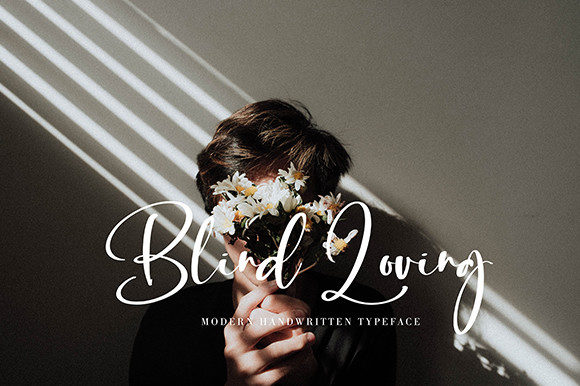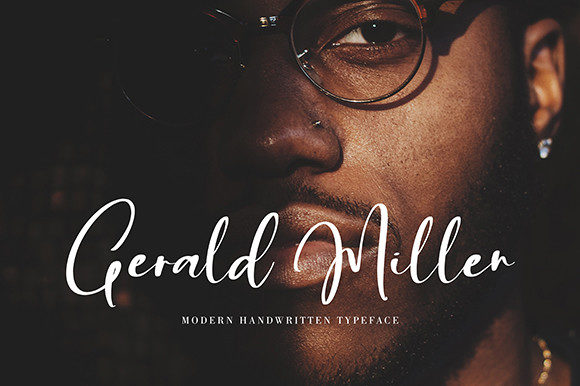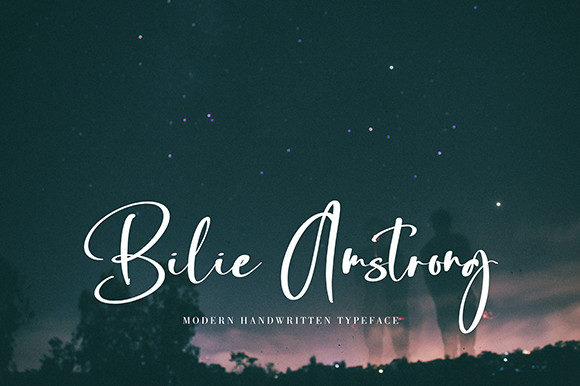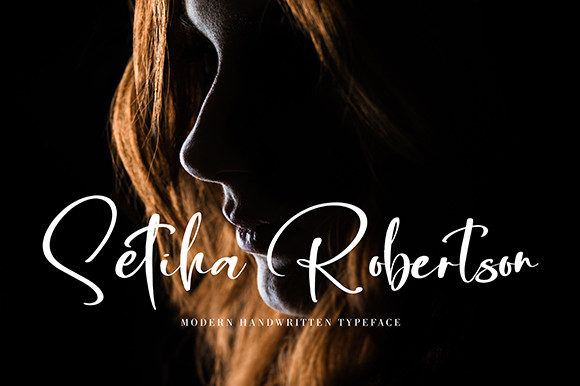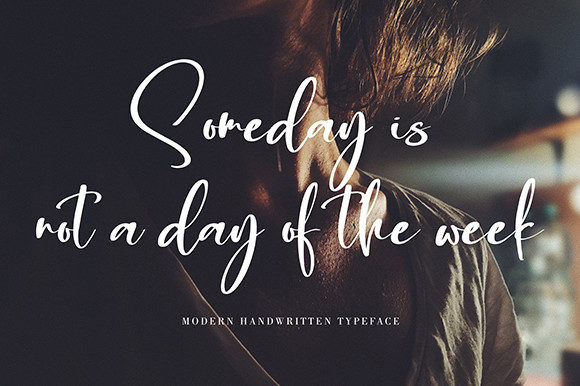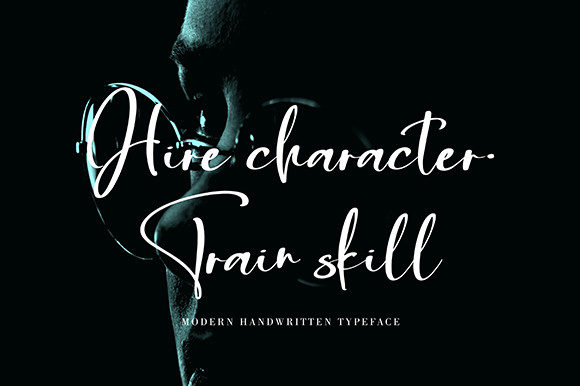
Introducing Begetto Elliot Font: Elevate Your Designs with Elegance
Are you on the hunt for a font that adds a touch of sophistication and elegance to your projects? Look no further than Begetto Elliot, a stunning handwritten font that is sure to capture your heart. With its flowing lines and timeless style, Begetto Elliot is the perfect choice for designers and crafters looking to create spectacular designs that stand out from the crowd.
The Beauty of Begetto Elliot
Begetto Elliot is a masterpiece of font design, boasting an elegant touch that is sure to elevate your designs to new heights. This beautiful handwritten font is characterized by its flowing lines, intricate details, and classic style, making it perfect for a wide range of projects, from wedding invitations and branding materials to social media graphics and more.
What Makes Begetto Elliot So Special?
So, what sets Begetto Elliot apart from other fonts on the market? Here are just a few of the key features that make this font truly special:
- Incredibly Distinct Style: Begetto Elliot has a unique and recognizable style that is sure to make your designs stand out from the crowd. Its elegant lines and classic details make it perfect for creating sophisticated and eye-catching designs.
- Timeless Appeal: Unlike trendy fonts that quickly go out of style, Begetto Elliot has a timeless quality that ensures it will remain relevant for years to come. Whether you’re creating designs for a client or working on a personal project, this font is sure to remain a stylish choice.
- Versatility: Begetto Elliot is a versatile font that can be used for a wide range of projects, from formal events and branding materials to social media graphics and more. Its elegant style makes it perfect for any design that requires a touch of sophistication.
How to Use Begetto Elliot in Your Designs
Using Begetto Elliot in your designs is easy! Here are a few tips to get you started:
- Pair it with Other Fonts: Begetto Elliot pairs perfectly with other fonts, making it easy to create stunning contrast and visual interest in your designs. Try pairing it with a clean sans-serif font for a modern look or a classic serif font for a more traditional feel.
- Use it for Headlines and Titles: Begetto Elliot is perfect for headlines and titles, where its elegant style can really shine. Use it to create eye-catching headings that draw the reader in and add a touch of sophistication to your designs.
- Experiment with Colors and Textures: Begetto Elliot looks stunning in a range of colors and textures, so don’t be afraid to experiment and find the perfect combination for your design. From classic black and white to bold brights and pastels, the possibilities are endless!
Why Designers and Crafters Love Begetto Elliot
Begetto Elliot has quickly become a favorite among designers and crafters, and it’s easy to see why. Here are just a few of the reasons why this font has captured the hearts of so many creatives:
- Elegant Style: Begetto Elliot’s elegant style makes it perfect for creating sophisticated and eye-catching designs that stand out from the crowd.
- Easy to Read: Despite its elegant style, Begetto Elliot is surprisingly easy to read, making it perfect for designs that require a touch of sophistication and a clear message.
- Highly Versatile: Begetto Elliot can be used for a wide range of projects, from formal events and branding materials to social media graphics and more.
In conclusion, Begetto Elliot is a truly special font that is sure to elevate your designs to new heights. With its elegant style, timeless appeal, and versatility, it’s the perfect choice for designers and crafters looking to create spectacular designs that stand out from the crowd. So why wait? Fall in love with Begetto Elliot today and discover the power of elegant typography for yourself!